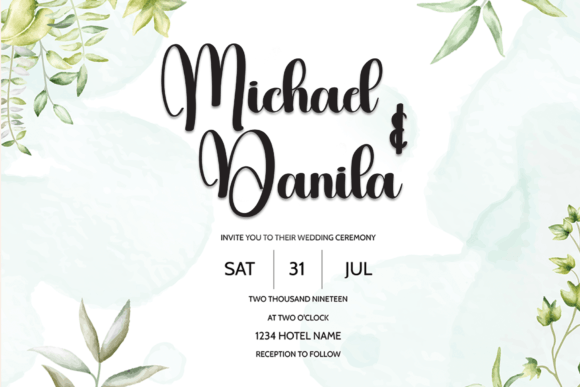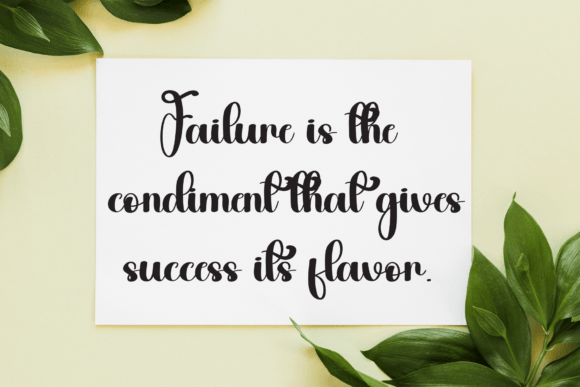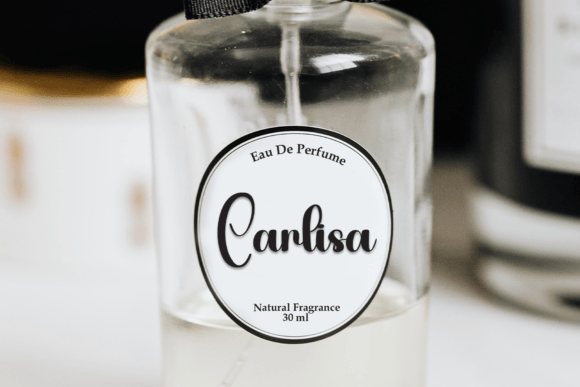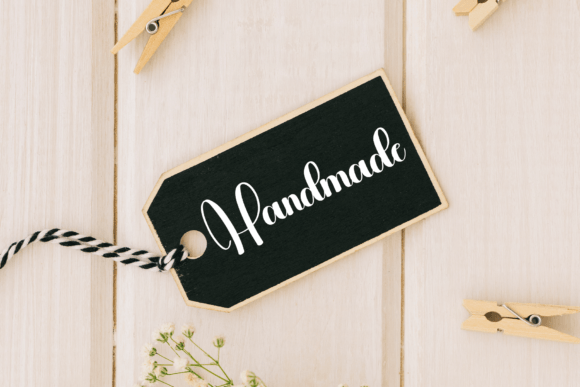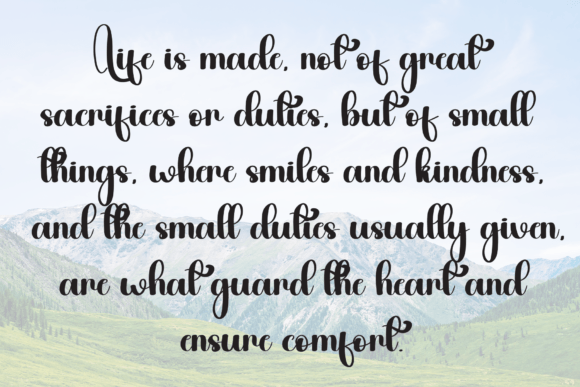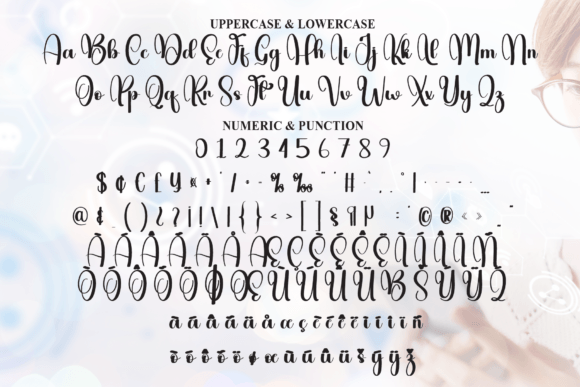
Discover the Magic of Digital Fonts: Elevate Your Designs with a Playful Twist
In the world of digital design, fonts play a crucial role in conveying emotions and setting the tone for your content. A well-chosen font can make all the difference in transforming a mundane design into a lively spectacle that resonates with your audience. In this article, we’ll dive into the universe of digital fonts, specifically focusing on a bespoke handwritten display font that exudes an engaging sweetness and friendliness.
The Power of Handwritten Fonts
Handwritten fonts have a unique ability to add a personal touch to your designs. They evoke feelings of warmth, approachability, and playfulness, making them perfect for wedding invitations, greeting cards, and other design projects that require a cheerful touch. Our bespoke handwritten display font is designed to embody cuteness and fun, making it an excellent choice for designers and crafters looking to add a distinctive typography to their work.
What Makes Our Digital Font Special?
Our digital font is carefully crafted to provide an unforgettable visual imprint on your content. Its delightful character has the magical power to transform any ordinary design into a lively spectacle that resonates emotionally with your audience. With its playful charm, this font is perfect for:
- Any design project that requires a cheerful touch
Using a unique digital font like ours can have several benefits for designers and crafters:
- Stand out from the crowd: With a distinctive font, your designs will stand out from the crowd and grab the attention of your audience.
- Add personality to your designs: Our font is designed to add a playful and friendly touch to your designs, making them more relatable and engaging.
- Enhance brand identity: A unique font can become a recognizable part of your brand identity, making it easier to establish a consistent visual brand.
Here are some tips for designers and crafters looking to get the most out of our digital font:
- Experiment with different pairings: Pair our font with other fonts or design elements to create a unique and visually appealing design.
- Play with colors and textures: Add an extra layer of depth and interest to your design by experimenting with different colors and textures.
- Keep it simple: Don’t be afraid to keep your design simple and clean, allowing the font to take center stage.
In conclusion, our bespoke handwritten display font is a unique and powerful tool for designers and crafters looking to add a playful twist to their designs. With its engaging sweetness and friendliness, this font is perfect for a wide range of design projects, from wedding invitations to social media graphics. By incorporating our digital font into your designs, you’ll be able to create a lasting impression on your audience and establish a consistent visual brand.